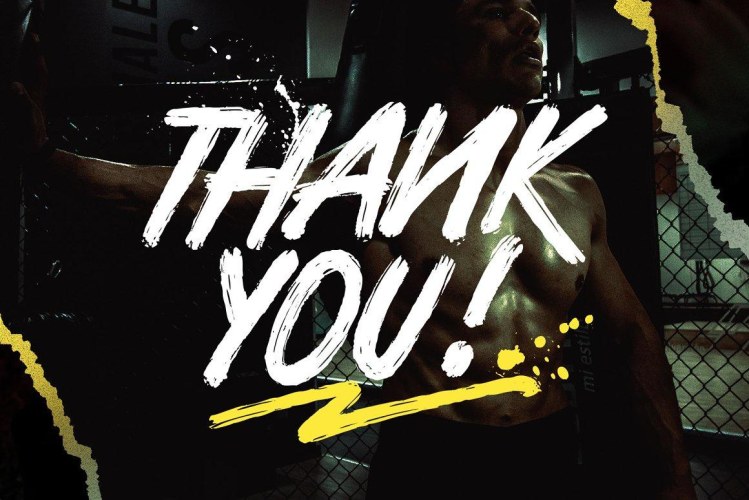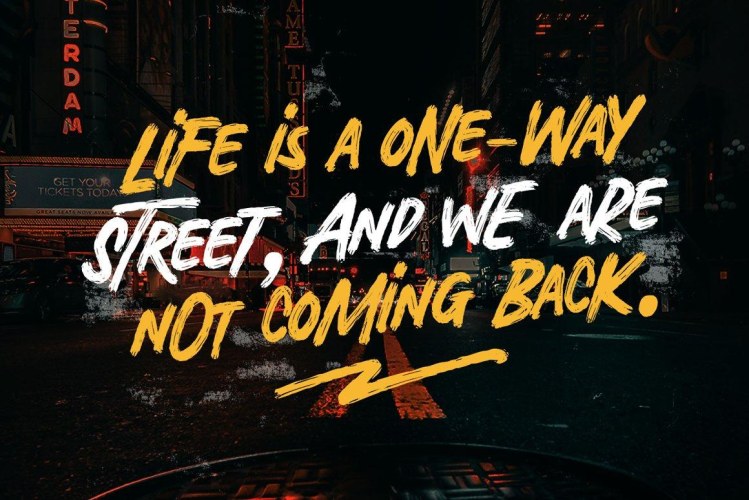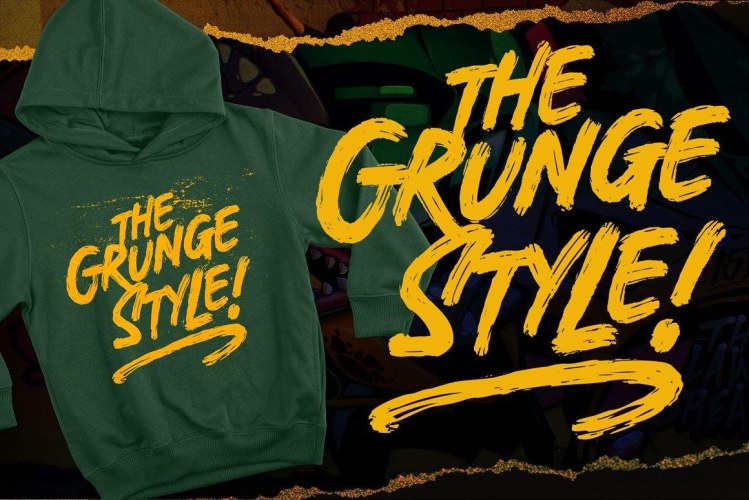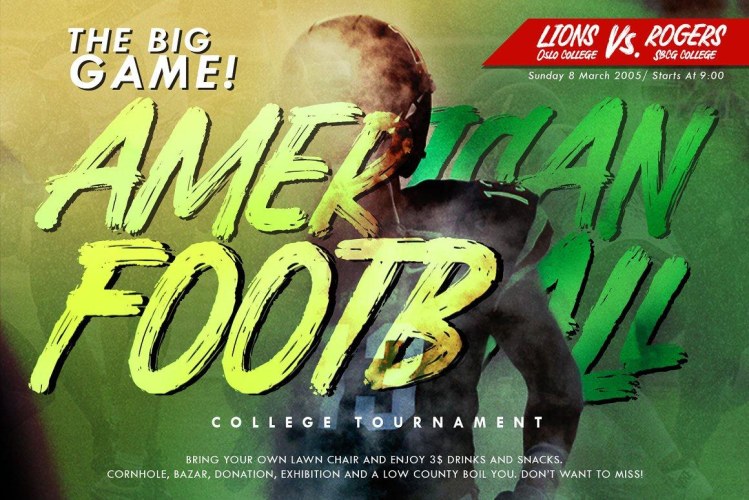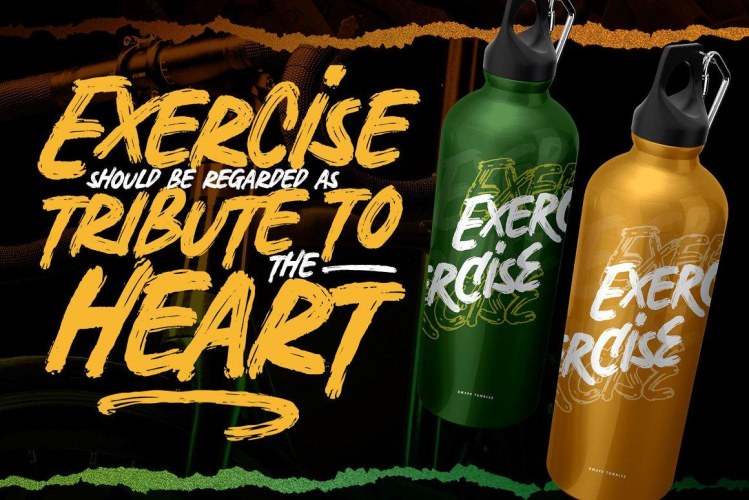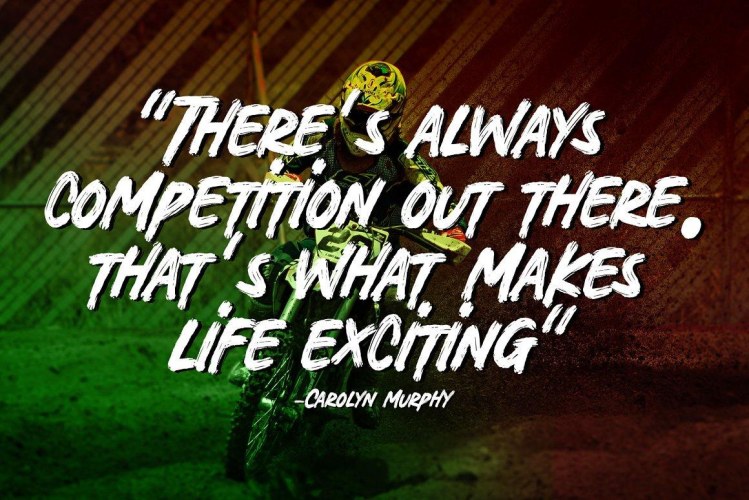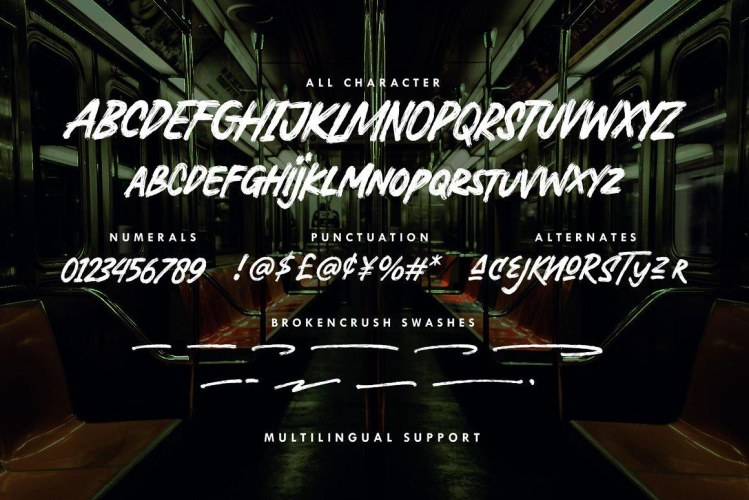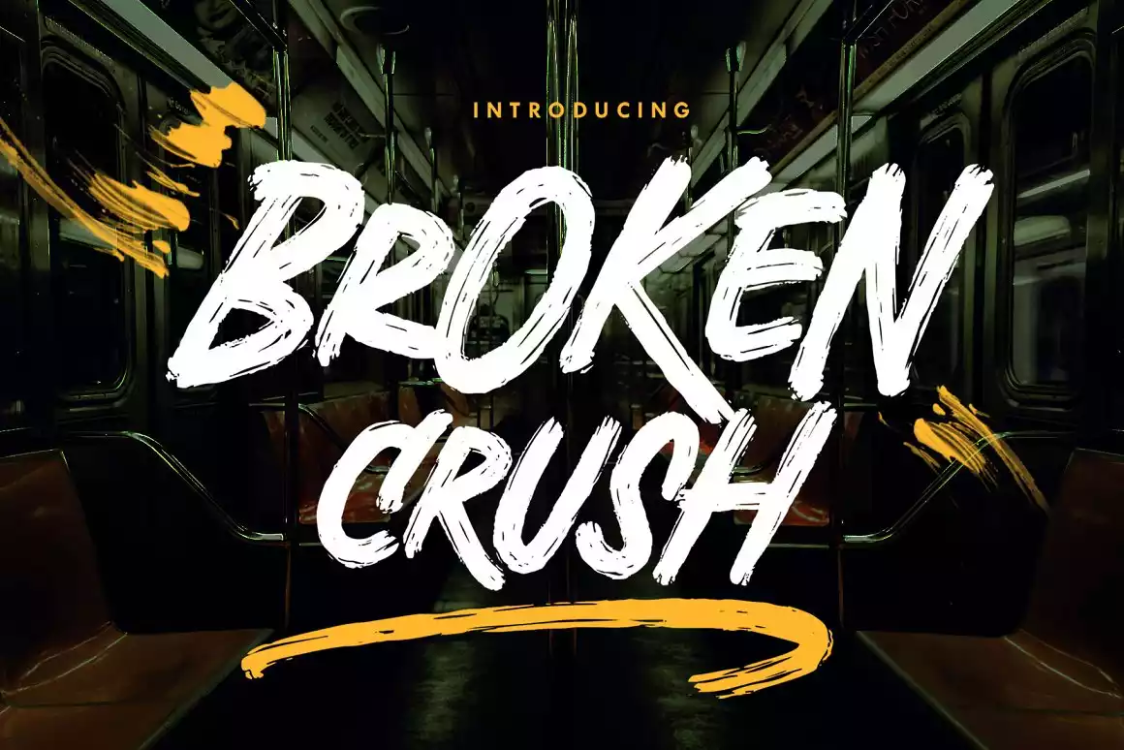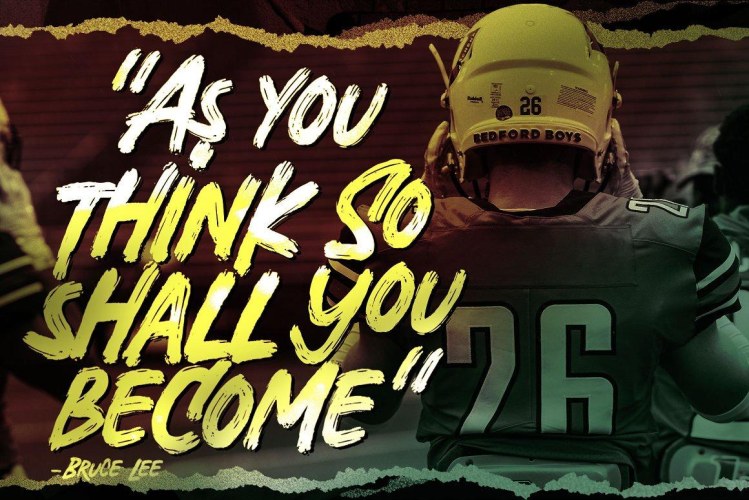
Broken Crush – Brush Font
Broken Crush is a rough brush font created with an express brush line, keeping the details and gives an eye-catching combination between the uppercase and small caps, complete with alternates and swashes! Broken Crush is suitable for display with a sporty, vibrant, and youthful taste! It is an excellent choice to use this font for Logos, Merchandise, Brand imagery, Apparel, Packaging, Simple quotes, and many more!
Where Broken Crush – Brush Font works best
Bold branding
Broken Crush – Brush Font brings energy to sports, fitness, streetwear and surf brands.
Merch & apparel
Brush lettering prints beautifully on T-shirts, tote bags and stickers.
Social media & thumbnails
Punchy brush strokes grab attention in stories, reels covers and thumbnails.
What is Broken Crush – Brush Font good for?
Broken Crush – Brush Font is a Brush Fonts typeface tagged Branding, Brush, Packaging. It works well for headlines, logos, posters, social media graphics and branding projects that need a distinctive brush fonts look.